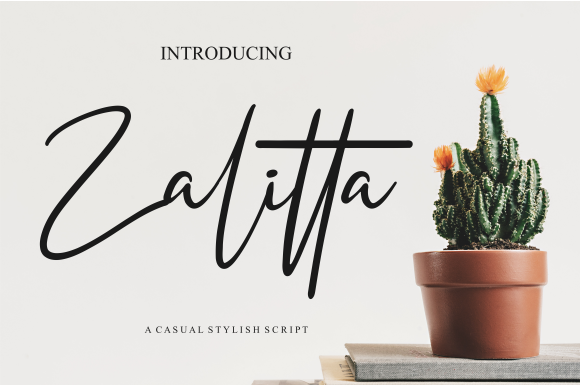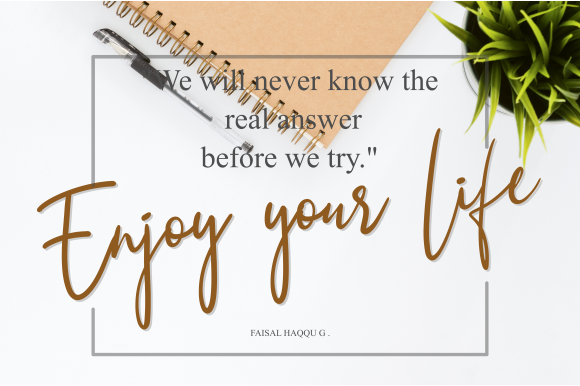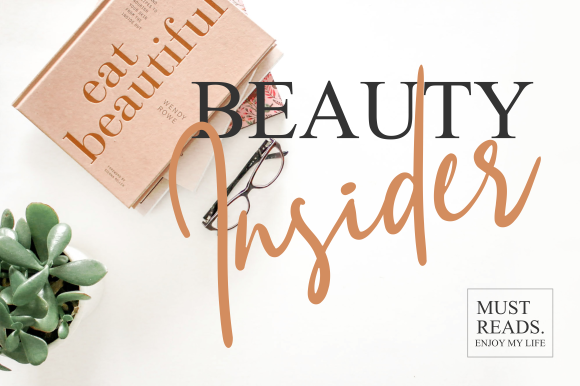
Zalitta Font
Zalitta is a cute and elegant handwritten font with an incredibly stylish feel. This font will appeal to a wide range of crafty ideas, from letterheads and titles to stationery.